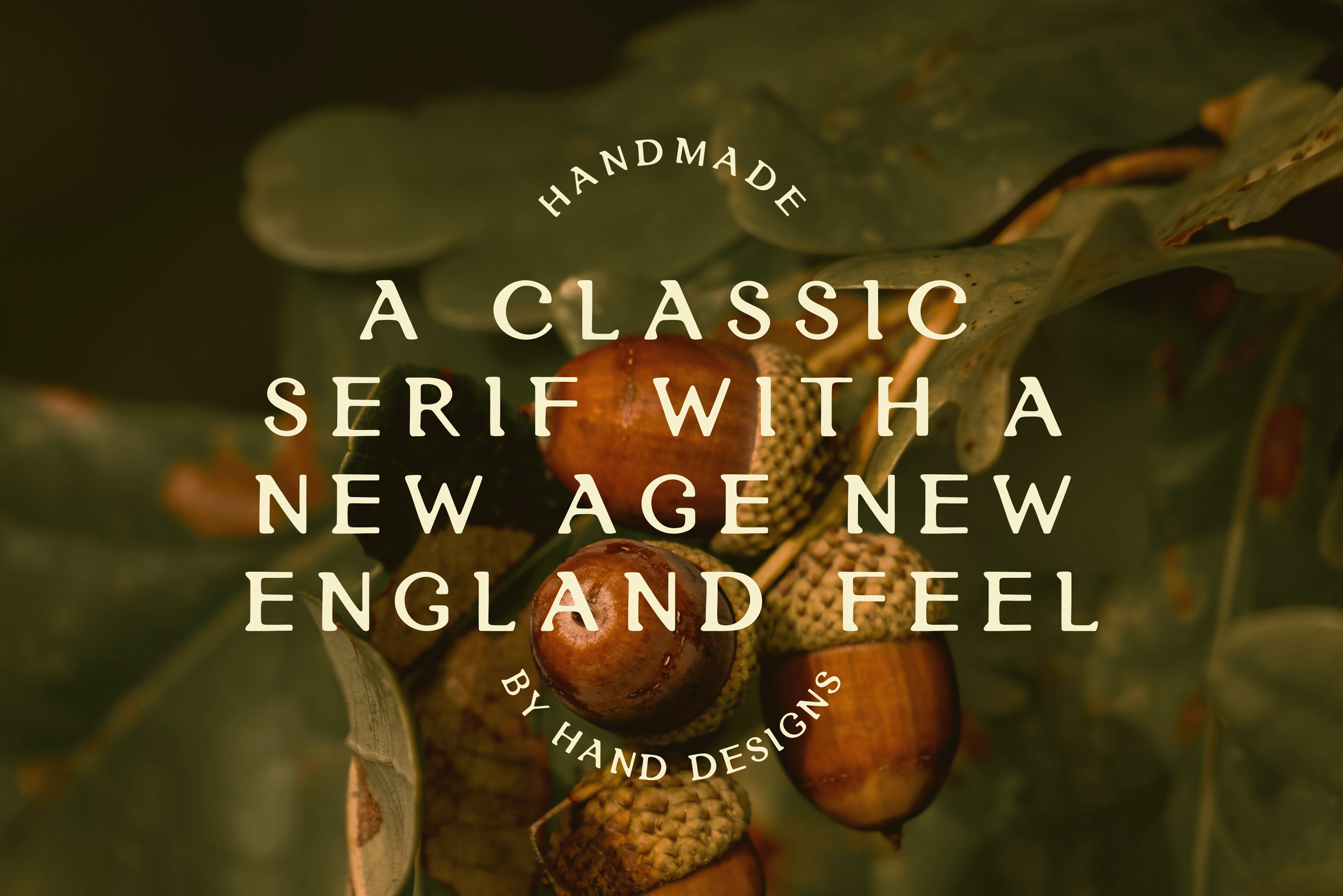
North Font
Introducing North, a beautiful hand-drawn serif font that bottles the essence of a perfect Northeast getaway. Inspired by crisp fall and winter days and the enduring beauty of classic port towns like those found in Maine, Vermont, and New Hampshire.
North is more than a font, it’s a feeling. Its softened edges and classic form evoke the warmth of a nostalgic Bed & Breakfast and the simple elegance of a timeless coastal brand.
For Designers: Use North for high-impact display text in branding, packaging, or editorial layouts. Its character also makes it flexible for body text that needs a touch of warmth.
For Brands: Infuse your identity with a sense of heritage, quality, and cozy nostalgia. Perfect for coffee, artisanal goods, hospitality, and lifestyle brands.
Key Features:
Full Uppercase Serif with softened, hand-drawn character.
Nostalgic, harmonious aesthetic perfect for modern brands with a timeless touch.
High flexibility and incredibly easy to use in print and digital designs.
Includes essential symbols for display and body use.